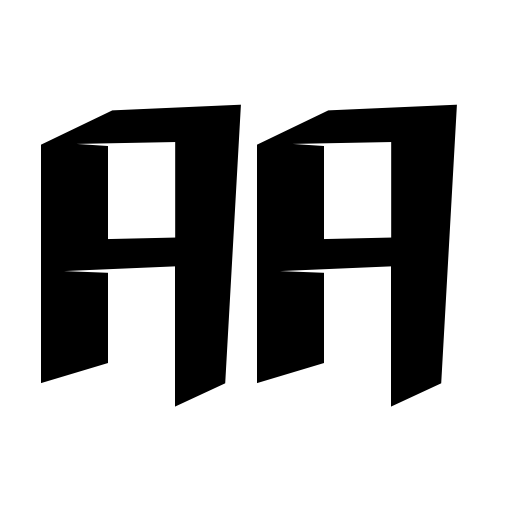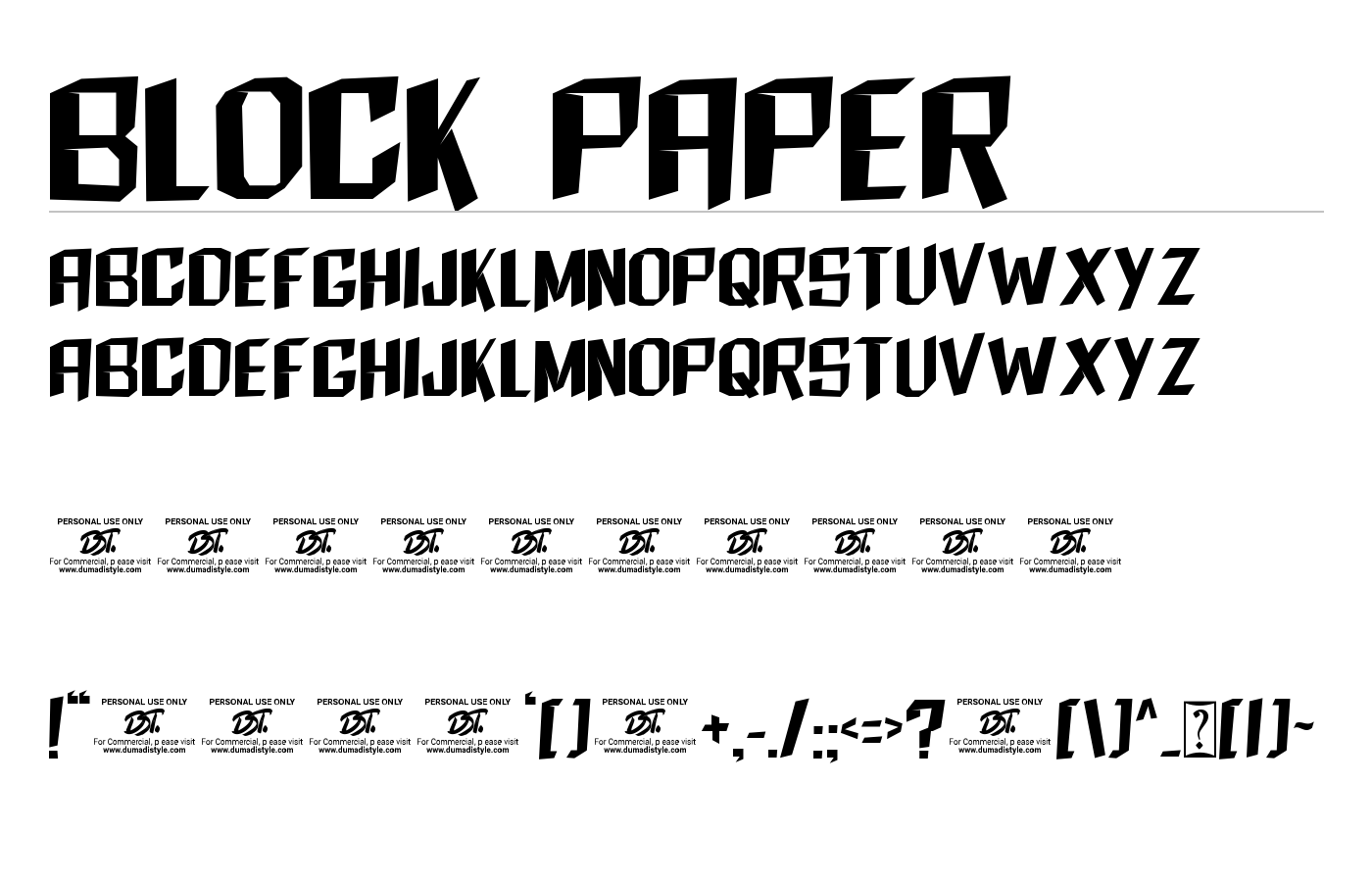
Block Paper Font is a bold, angular sans serif with a strong geometric feel and sharp, irregular edges that give it a dynamic, hand-cut paper style. Its heavy weight and condensed letterforms make it ideal for striking headlines, logos, and creative packaging where a modern, edgy, and slightly playful vibe is desired. This font works well in designs that need to stand out with personality and strong visual impact.
Block Paper Font
About Block Paper Font
| Font family | Block Paper Font |
| Designer | Toni Dzulham |